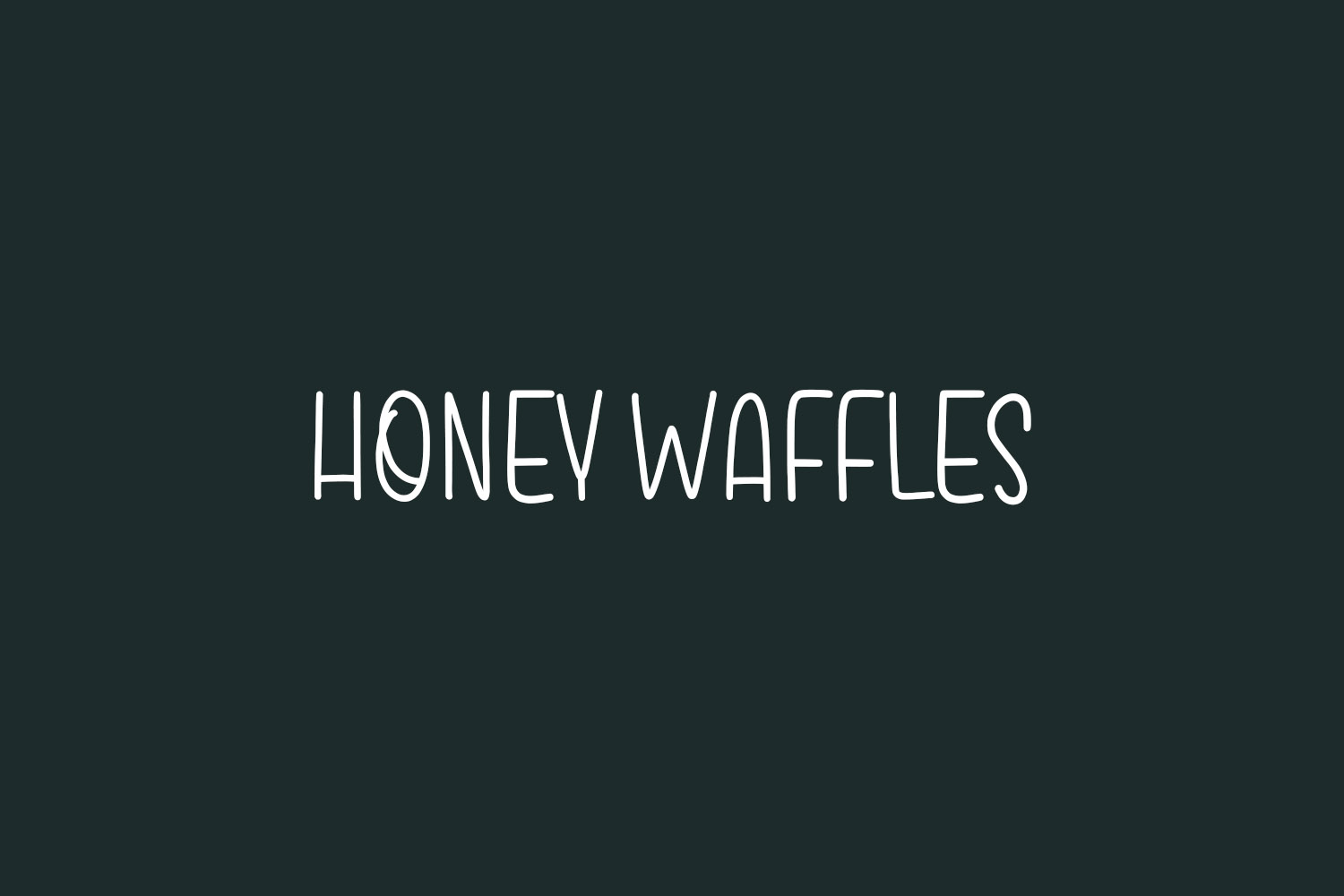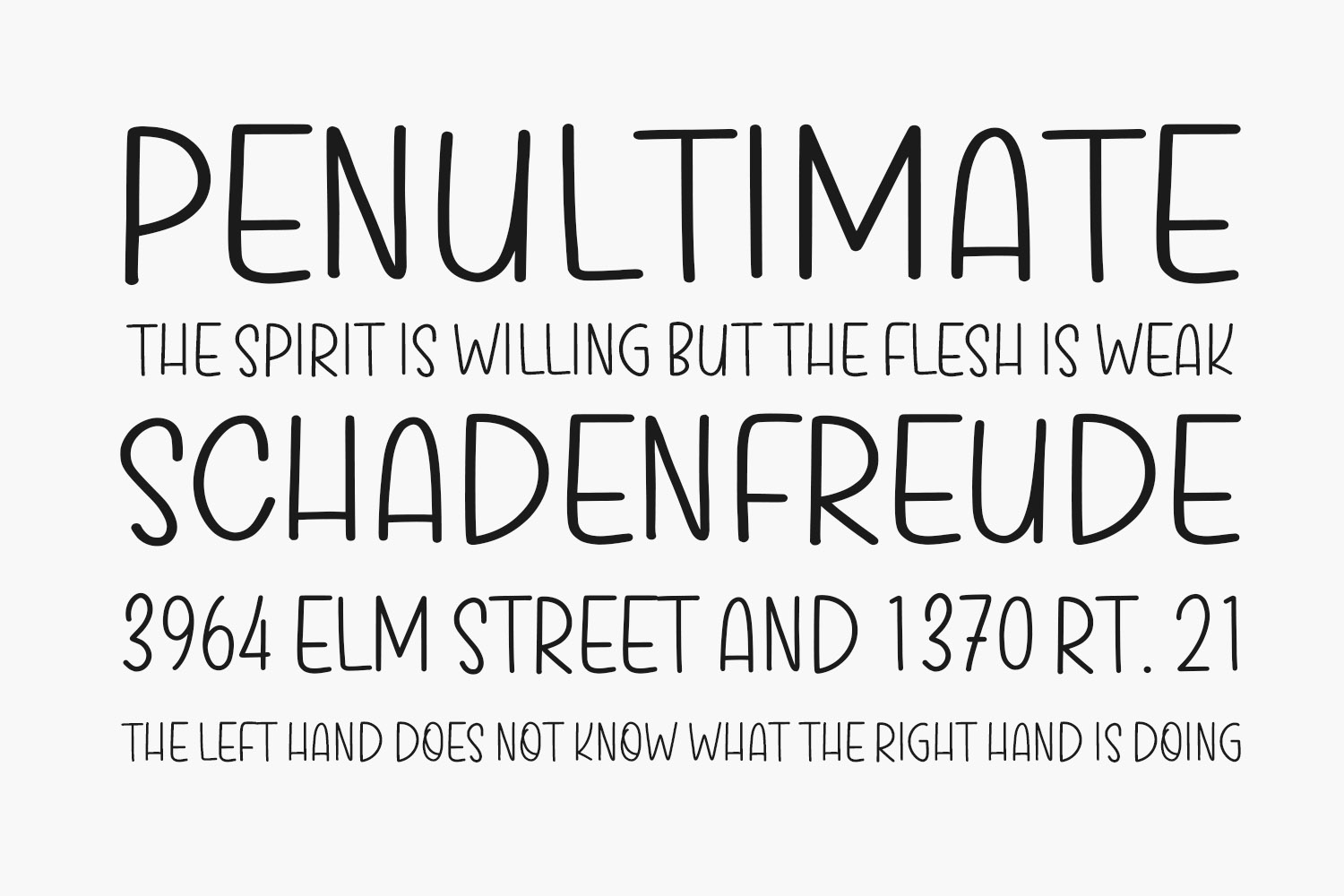
Honey Waffles Free Font Family is a simple and versatile duo font (sans serif and script). These fonts work great together as well as separately, so add them confidently to your fonts’ library and fall in love with the results. Honey Waffles Free Font Family was designed by Allouse Studio and is free for personal use only. Please purchase the full version for commercial use.
Honey Waffles Regular The quick brown fox jumps over the lazy dog
Honey Waffles Script The quick brown fox jumps over the lazy dog